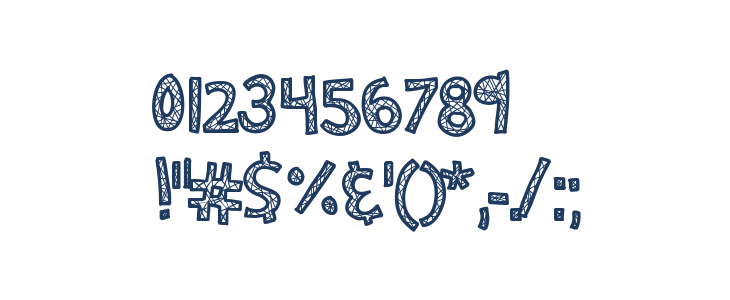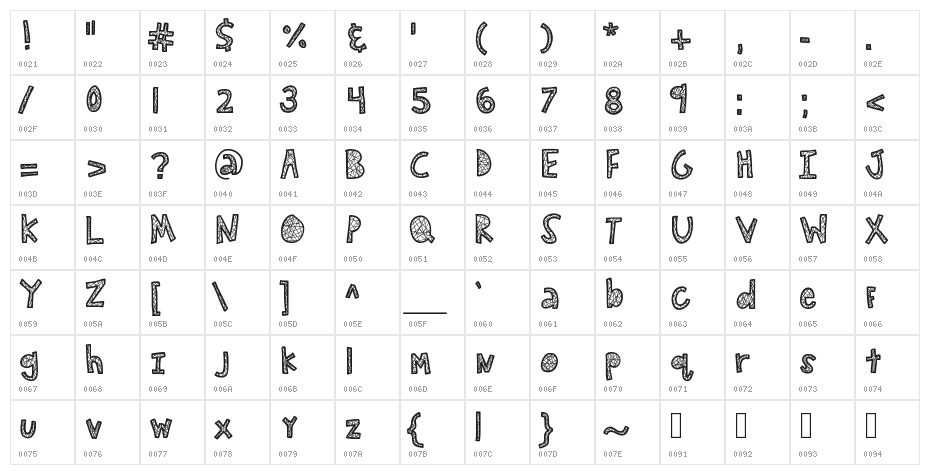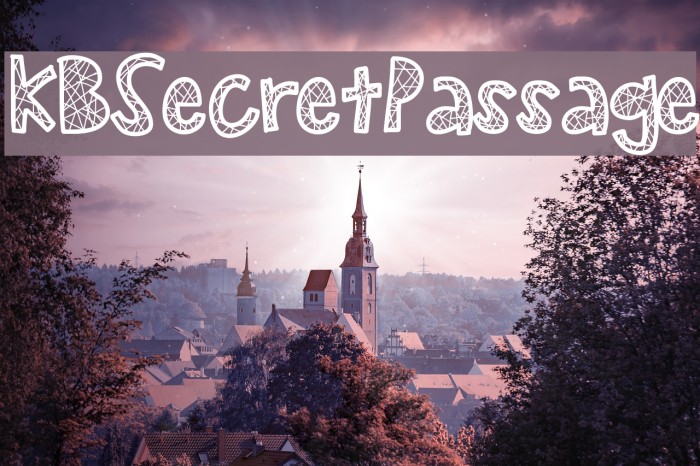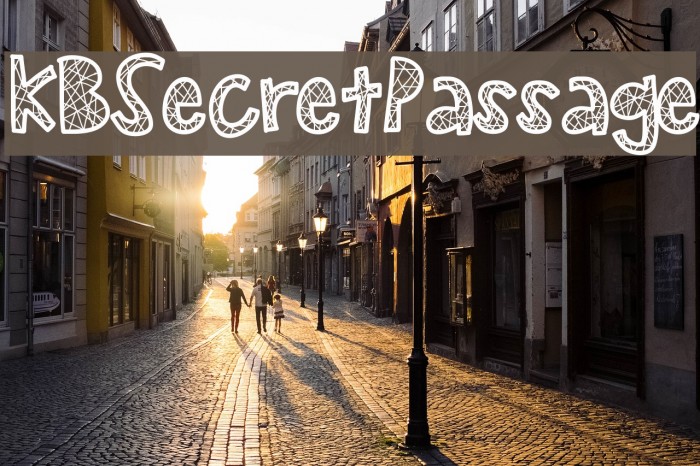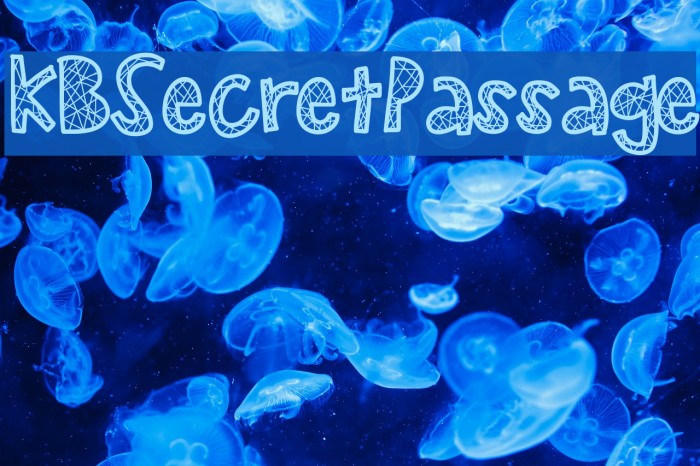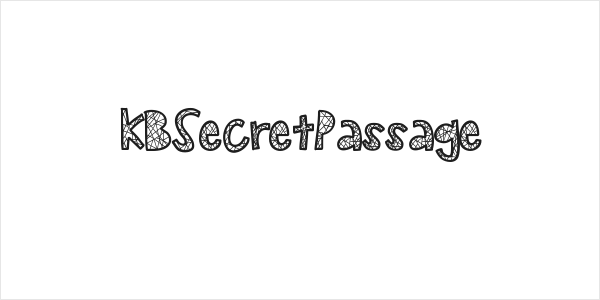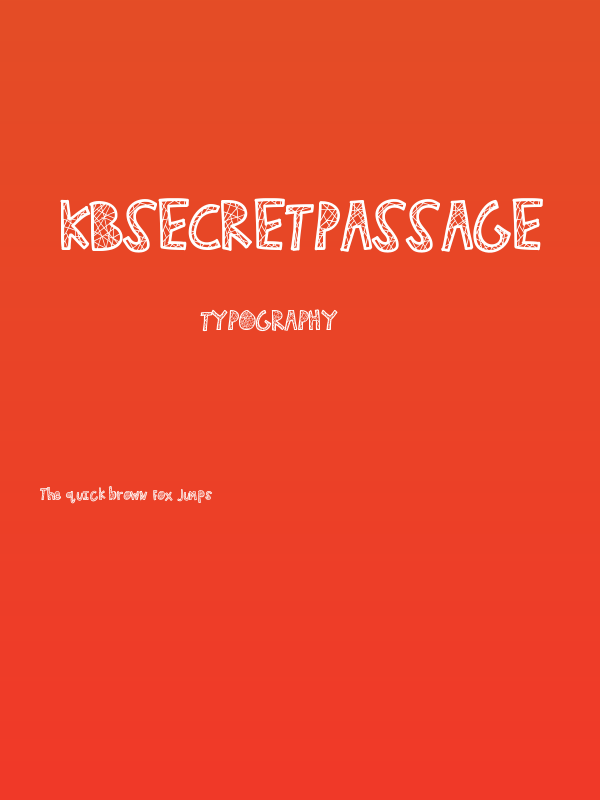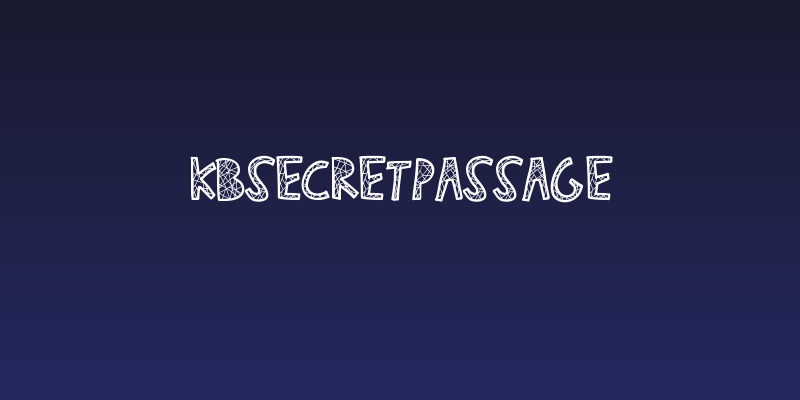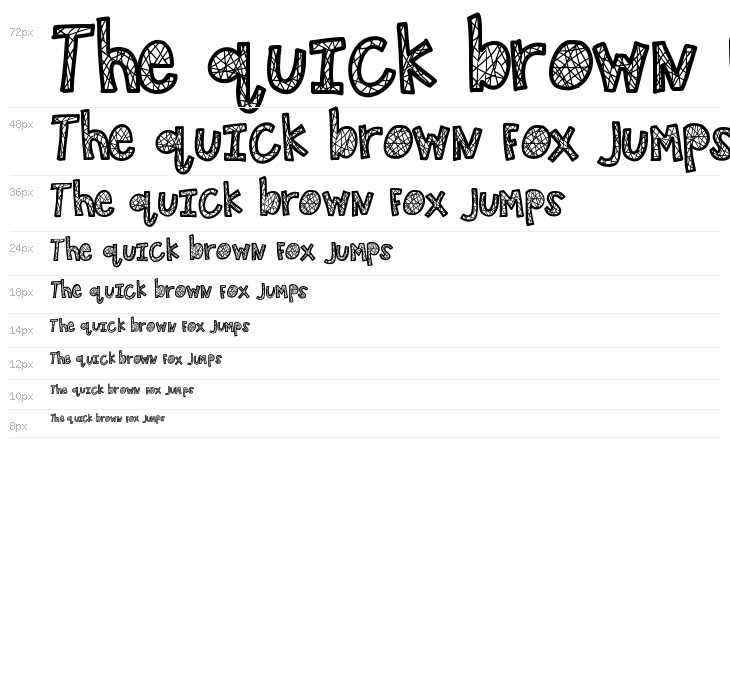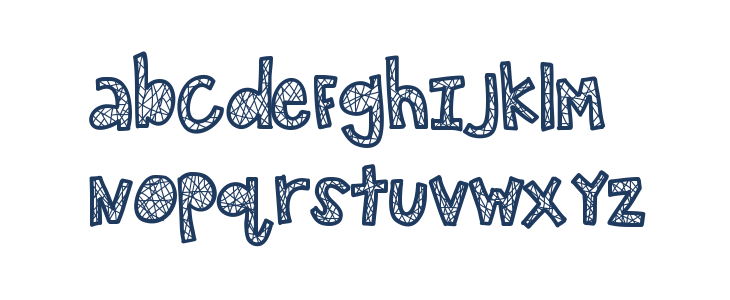
KBSecretPassage Font
KBSecretPassage Description
This font features a unique and playful design with a hand-drawn aesthetic. Each character is filled with intricate, web-like patterns that create a sense of depth and texture. The letters are bold and slightly irregular, giving them a whimsical and artistic feel. The uppercase and lowercase letters maintain a consistent style, while the numbers and special characters are equally detailed, making the font versatile for various creative projects. The overall appearance is eye-catching and suitable for designs that require a touch of creativity and individuality.
| Overall Style | Artistic, Whimsical |
| Proposed Projects | Ideal for children's book covers, creative posters, artistic branding, and unique invitations. |